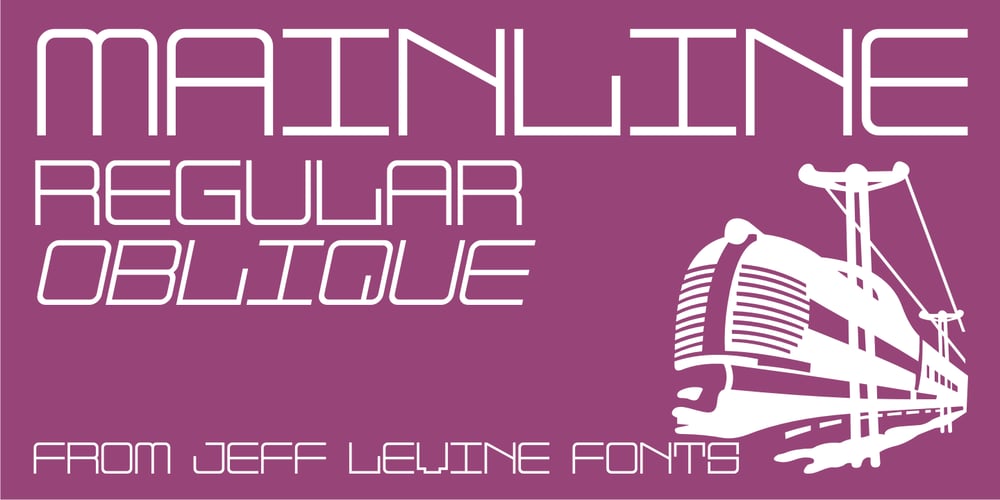
Mainline JNL
Mainline JNL font
Mainline JNL Font Family was designed by Jeff Levine and published by Jeff Levine. Mainline JNL contains 2 styles and family package options. With virtually no characters containing negative space to kern, Mainline JNL is an experimental typeface with a monospaced, fixed width design, utilizing a retro-techno-1980s look for a clean headline feel.